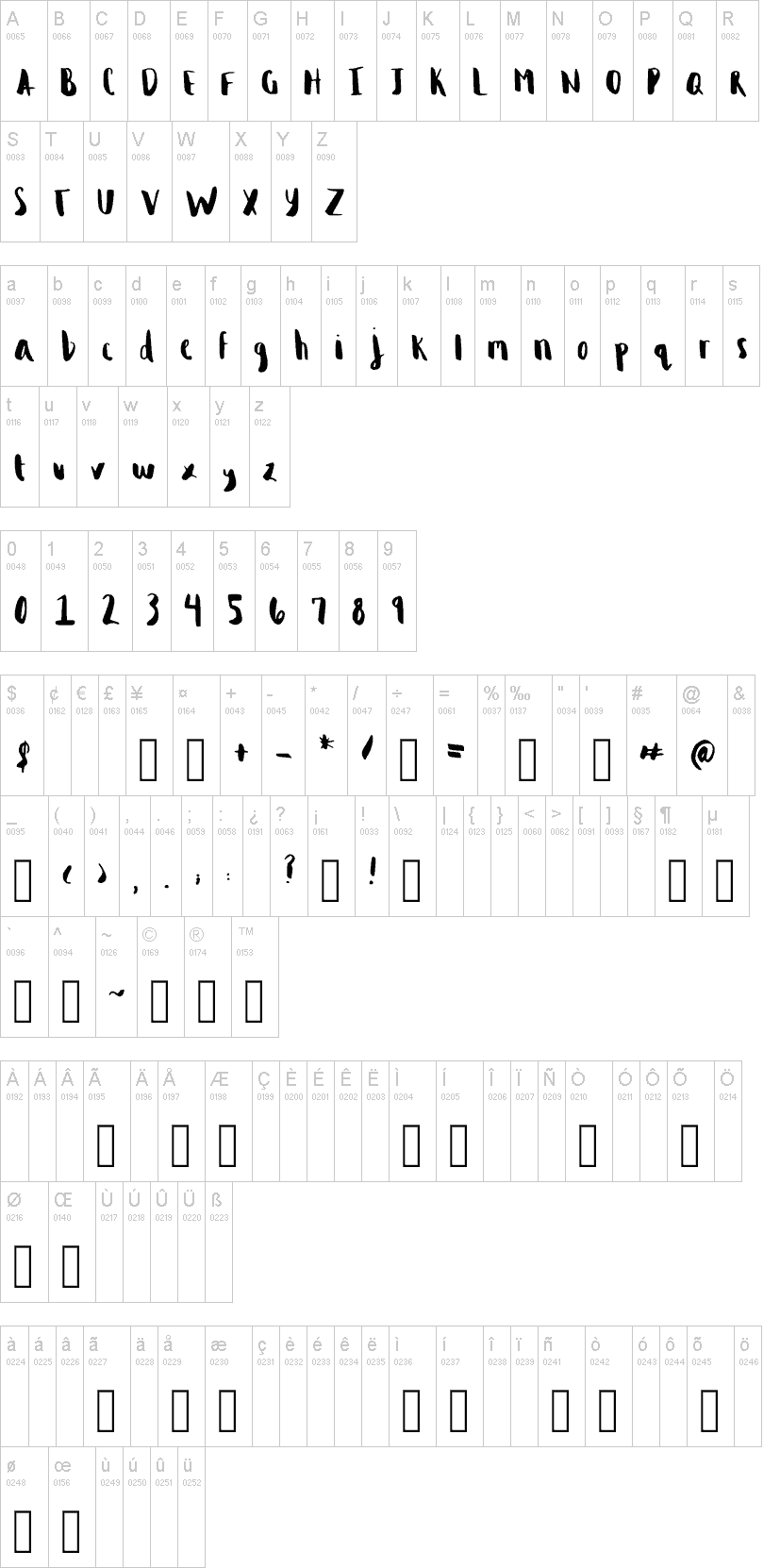
brandy alexander
Experience the Uniqueness of Brandy Alexander Font
Brandy Alexander, designed by renowned typographer John Smith in 2022, embodies a stylish blend of classic elegance and modern flair. This font is ideal for various applications such as web design, branded materials, and formal invitations, bringing sophistication and readability to your projects.
The Inspiration Behind Brandy Alexander Font
Inspired by the classic cocktail of the same name, Brandy Alexander Font combines the charm of vintage typography with contemporary sensibilities. John Smith’s design philosophy emphasizes fluidity and elegance, resulting in a typeface that is both timeless and modern.
Best Use Cases for Brandy Alexander Font
Whether you’re crafting elegant wedding invitations, sophisticated branding materials, or stylish promotional graphics, Brandy Alexander Font stands out due to its refined appearance and ease of readability. Make your designs memorable with this unique typeface.